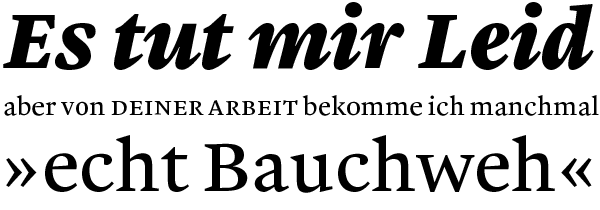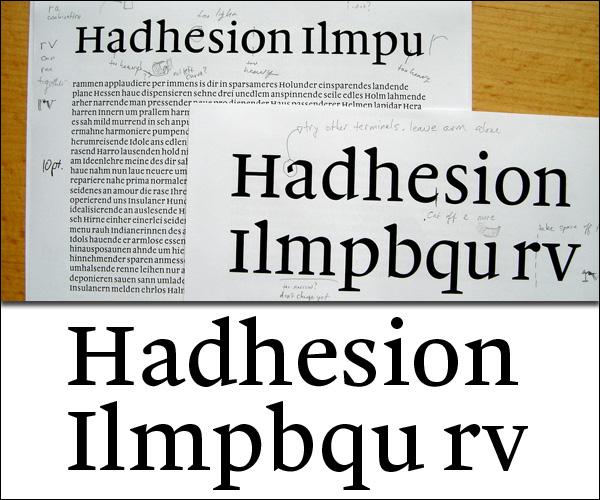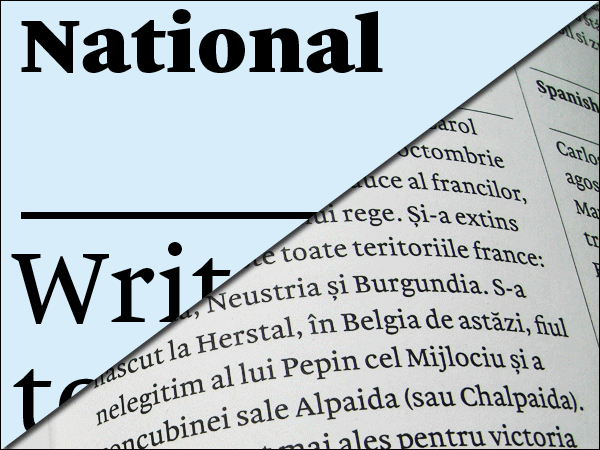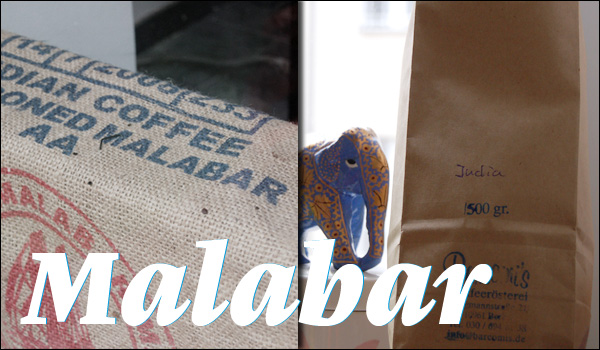
Dan Reynolds: Malabar
Malabar™ is a new type family for extensive text available at Linotype.com. This study oldstyle serif face currently includes six fonts for the Latin script. The family grew out of Martel, a multi-script project that I created on the MA Typeface Design course at the University of Reading in 2008. Malabar received a Certificate of Excellence in Type Design at the Type Directors Club of New York TDC² competition in 2009.
sehr schön, ein Hybrid zwischen Bembo, Meta Serif und Swift. Gefällt mir.
Die oberen Abschlüsse vom "d" und vom "h" sehn ein bisschen dunkel aus.
Ich find ja die kleinen Versalien sehr spannend. Müsste grad für deutschen Satz interessante Effekte haben (Grauwert/Wortkonturen).